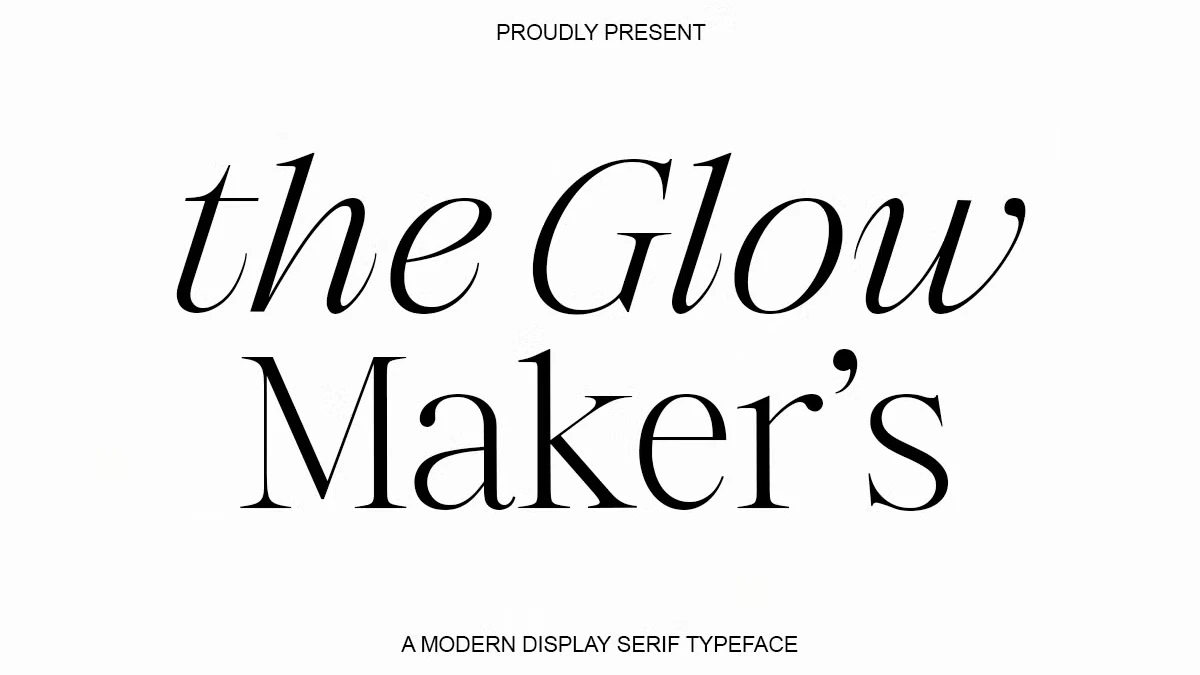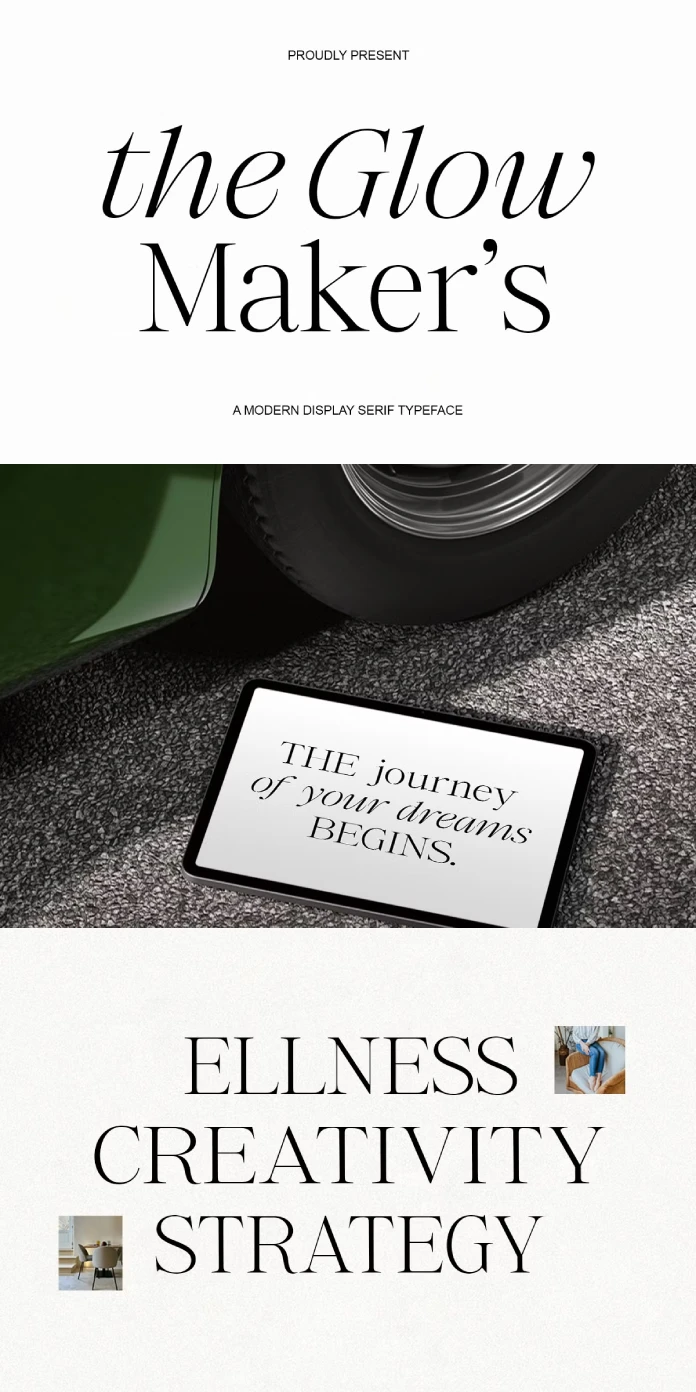
Discover a New Era of Typographic Elegance with the Glow Maker’s Typeface.
A font choice can instantly set a tone, convey an emotion, and define a brand’s character. Today, designers are seeking typefaces that balance classic readability with a distinct, modern personality. This is where The Glow Maker’s, a stunning modern display serif from Positive Type Foundry, truly shines. It is more than just a font; it is a complete typographic solution. The Glow Maker’s is designed for creatives who need to communicate sophistication, style, and a touch of luxury. As we see a return to more expressive and character-rich typography, this font family feels incredibly relevant and timely.
The design community is embracing serif fonts again. For years, sans-serif fonts dominated with their clean, minimalist appeal. Now, there is a renewed appreciation for the warmth and tradition of serifs. The Glow Maker’s perfectly captures this spirit. It honors classical letterforms while infusing them with a contemporary energy. This makes it an ideal choice for projects that need to feel both established and forward-thinking. Let’s explore what makes this typeface so special.
The Glow Maker's Serif Font Family by Positive Type Foundry
The Glow Maker’s Serif Font Family by Positive Type Foundry
What Defines The Glow Maker’s Aesthetic?
At its heart, The Glow Maker’s is a display serif. This means it was crafted to make an impact at larger sizes. Think headlines, logos, and powerful statements. Its most defining features are its refined contrast and graceful curves. The elegant transition between thick and thin strokes creates a beautiful rhythm. Consequently, this high contrast gives the font a luxurious and polished feel. It commands attention without ever feeling loud or abrasive.
The letterforms themselves are drawn with precision and care. Each character feels balanced and intentional. This attention to detail results in a typeface that is not only beautiful but also highly functional. It provides a voice that is both assertive and approachable. This unique combination is what sets The Glow Maker’s apart in a crowded field.
An Expansive Family of 15 Styles
Versatility is a key strength of The Glow Maker’s. The family includes an impressive 15 distinct styles. This extensive range gives designers incredible flexibility. You can create complex and harmonious typographic systems using a single font family. The collection includes:
• Core Styles: Regular, Italic, and Oblique provide a solid foundation.
• Width Variations: Condensed and Expanded styles offer creative options for different spaces and impacts.
• Comprehensive Italics: The family also includes a full suite of italics for each width, ensuring stylistic consistency.
This variety means you can use an Expanded style for a powerful headline. Then, you can use a Condensed Italic for an elegant subheading. Ultimately, this allows for a cohesive visual language across any project.
Why The Glow Maker’s Is Perfect for Modern Brands
The appeal of The Glow Maker’s goes beyond its visual beauty. It aligns perfectly with the needs of contemporary branding. Brands today want to build connections and convey authenticity. A well-chosen serif typeface can help achieve this. It can suggest a sense of history and credibility. The Glow Maker’s allows brands to tap into this feeling without appearing old-fashioned.
Evoking Luxury and Sophistication
In fashion, beauty, and other luxury markets, typography is crucial. It helps shape perception and communicate value. The elegant and high-contrast nature of The Glow Maker’s makes it perfect for this purpose. Its refined forms can instantly elevate a brand’s identity. It suggests quality, craftsmanship, and exclusivity. For this reason, it is an excellent choice for logos, packaging, and editorial design.
Global Readiness and Creative Flourishes
In our interconnected world, multilingual support is essential. The Glow Maker’s provides extensive language support. This ensures brands can speak with a consistent voice across international markets. Additionally, the font includes elegant stylistic variations. These alternates and ligatures allow designers to add a custom, artistic touch to their work. This feature is perfect for creating truly unique and memorable typography.
How to Use The Glow Maker’s in Your Projects
The practical applications for The Glow Maker’s are vast. Its strength lies in making a sophisticated statement. It is a powerful tool for any designer’s toolkit.
Branding & Logo Design
For branding, The Glow Maker’s offers a fantastic starting point. Its display qualities ensure a wordmark is both impactful and legible. The different weights and widths allow for a complete branding system. You can create a strong logo and then use other family members for taglines and body copy.
Editorial & Magazines
This typeface is a natural fit for fashion and lifestyle magazines. You can use it for striking headlines that draw readers in. The various styles also help in creating a clear and elegant layout hierarchy. Pairing different styles from the family creates a dynamic yet unified look.